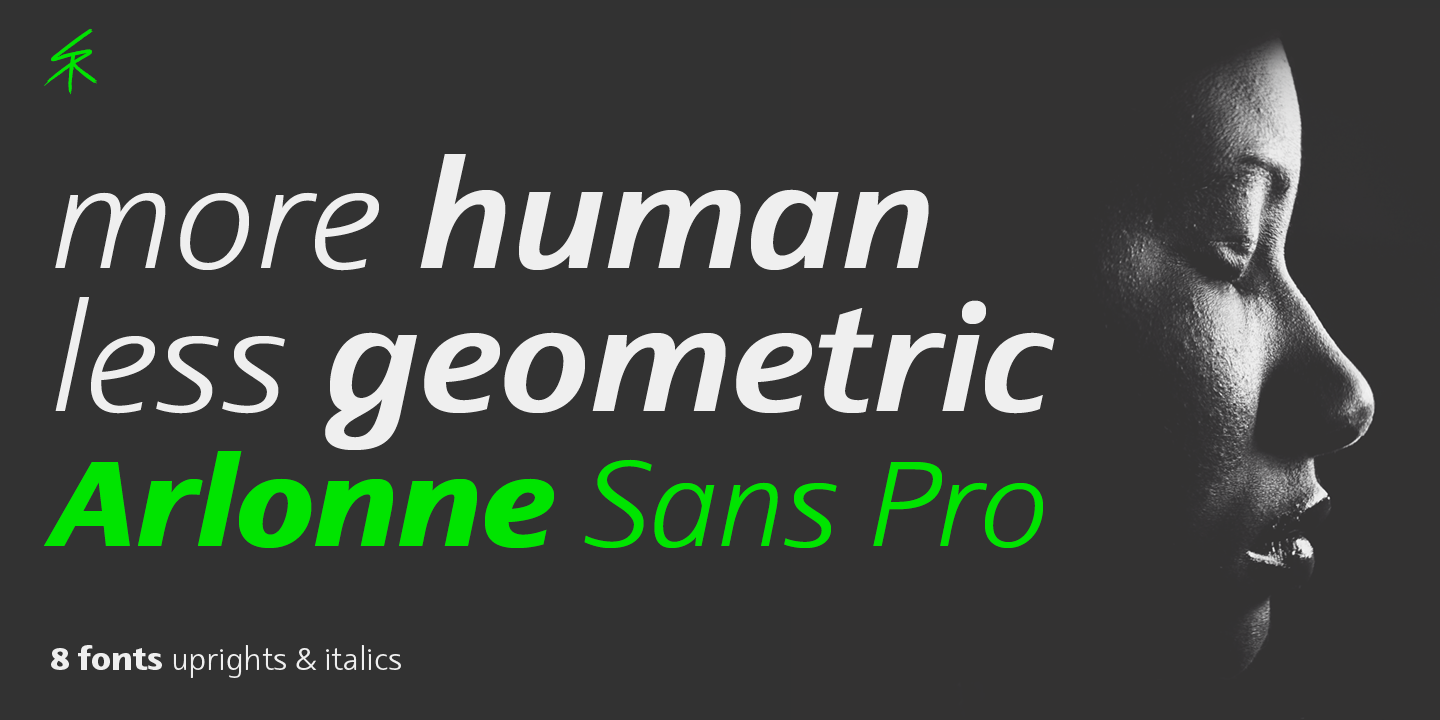
Arlonne Sans Pro Font Free Download is a clean, modern sans-serif typeface designed for versatility and readability. Its sleek and balanced letterforms make it perfect for corporate branding, websites, user interfaces, presentations, and editorial layouts.
Whether you’re creating professional documents, stylish logos, or clear digital content, Arlonne Sans Pro Font Free Download delivers clarity and contemporary style. It adapts seamlessly across various platforms and design contexts, ensuring your message is always sharp and engaging.